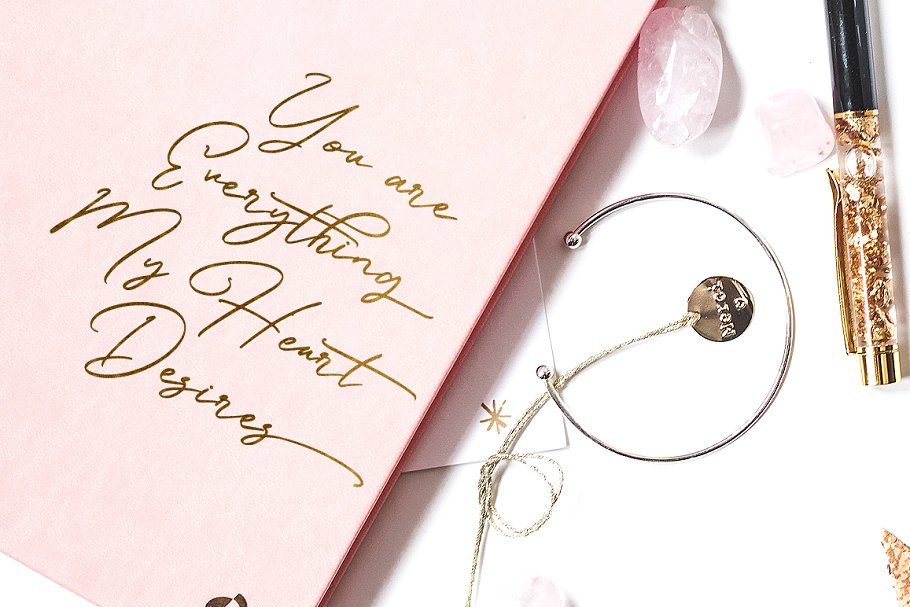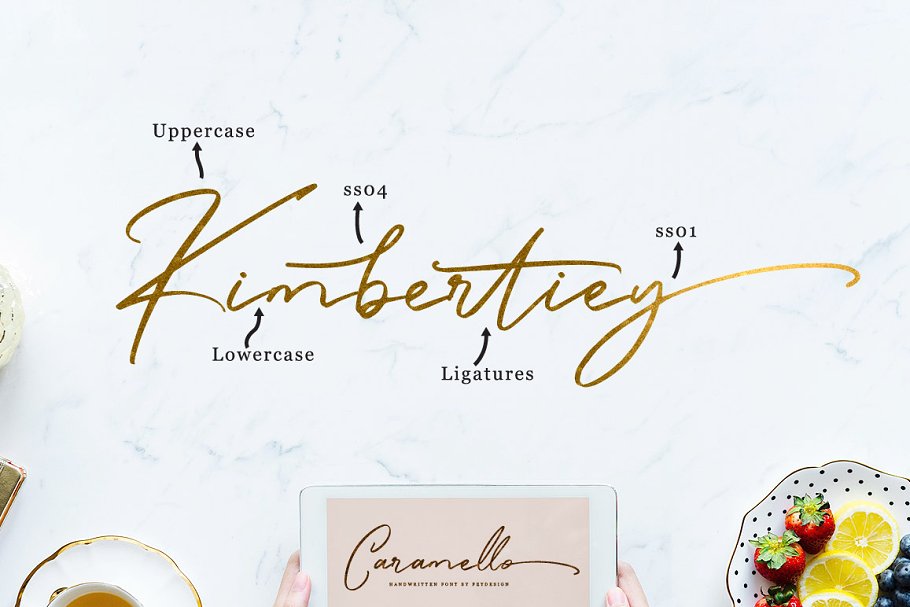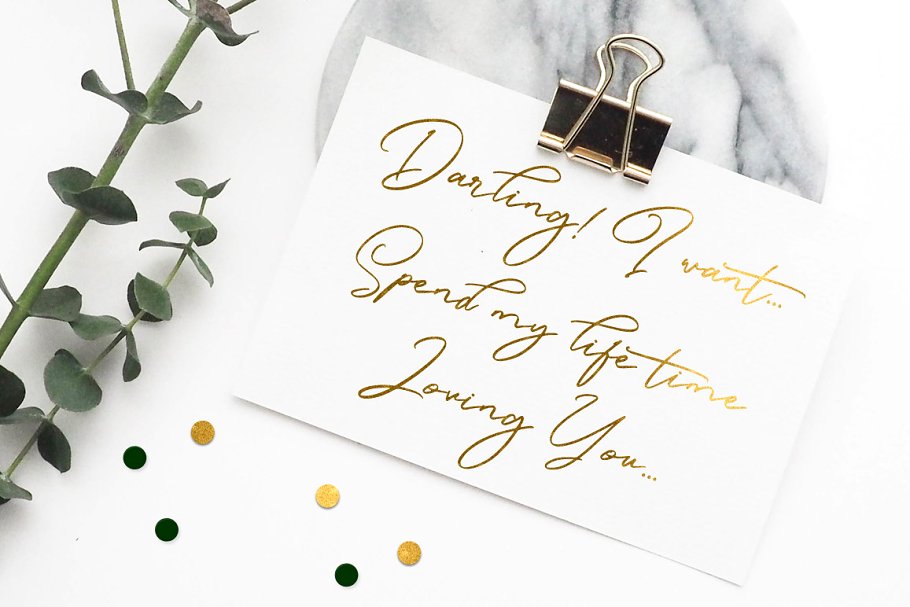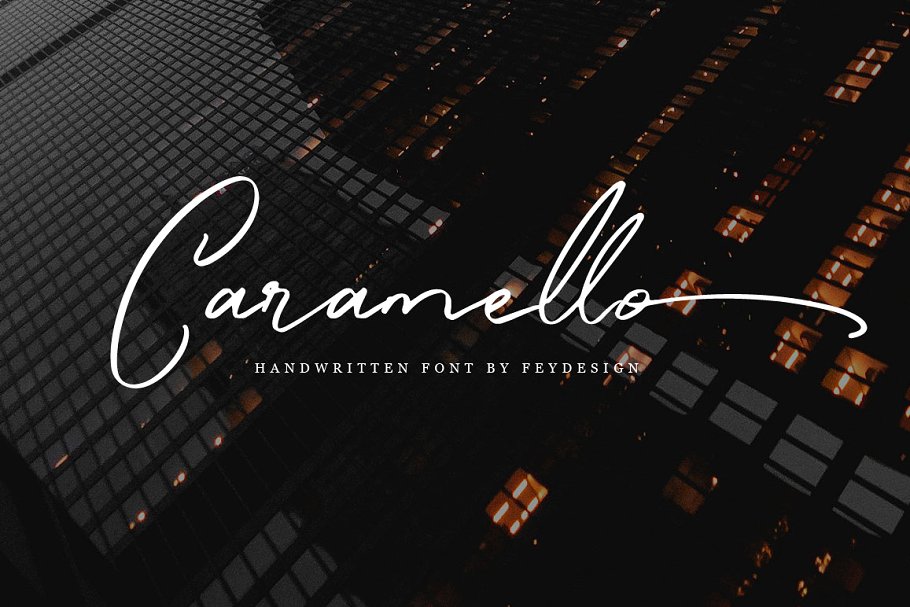
Caramello Handwritting Font
Caramello Font – a new handwritting script font by FeyType. For those of you who are needing a touch of elegant, hand made signature and modernity for your designs, this font was made just for you! Caramello is handwritten script font with signature style. Suitable for design, element design, wedding, event, t-shirt, logo, badges, sticker, and awesome work, etc…